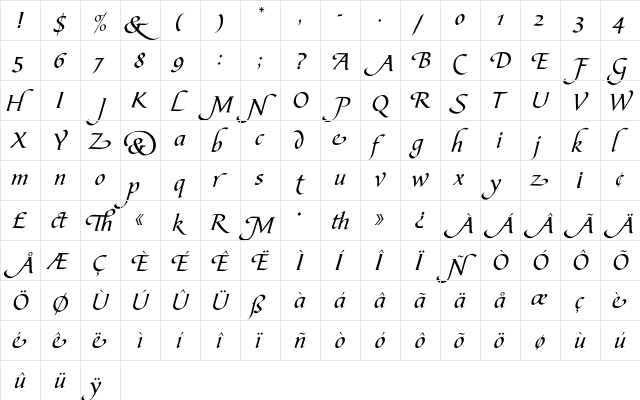
BibleScriptEF Alternates
Design Context for BibleScriptEF Typeface
BibleScriptEF flows with the natural rhythm of handwritten lettering, making it ideal for designs that call for warmth and personal expression.
Font Pairing: Combine BibleScriptEF with a simple geometric sans for maximum contrast — the tension between flowing curves and clean structure is a classic typographic pairing.
Pro Tip: Pair BibleScriptEF with a clean sans-serif for supporting text. The contrast between fluid script and geometric structure creates an elegant typographic hierarchy.